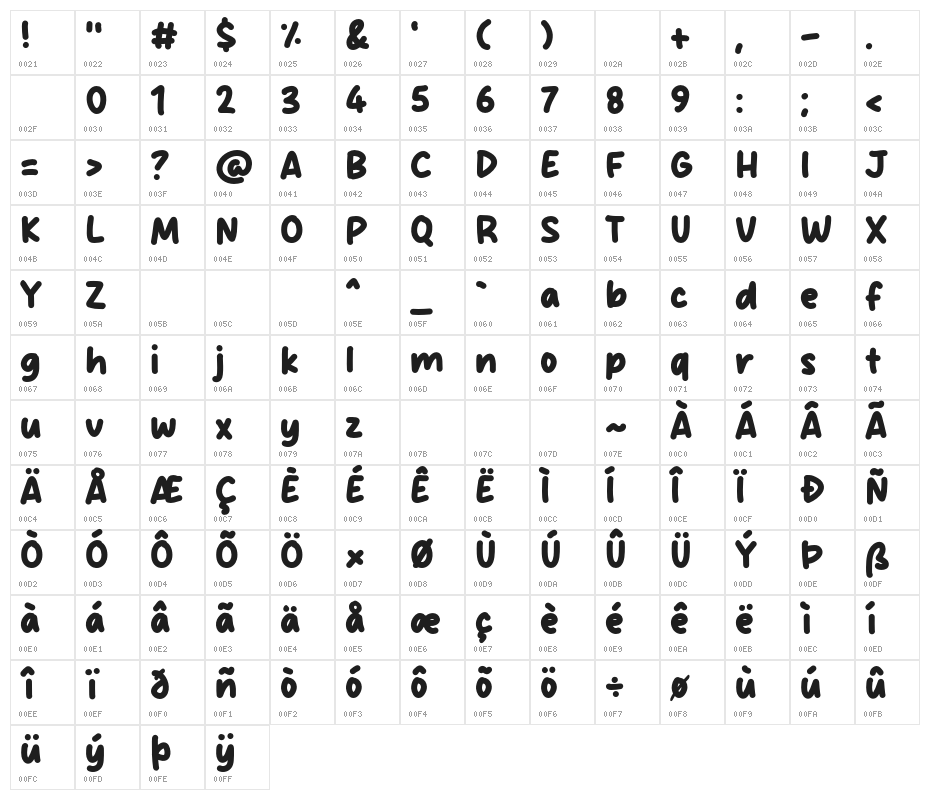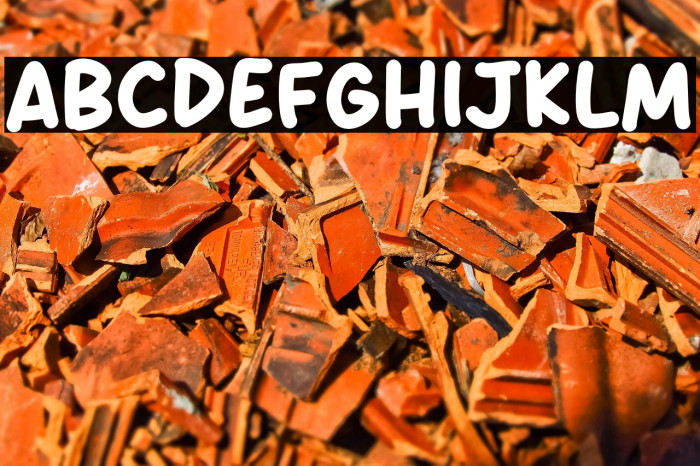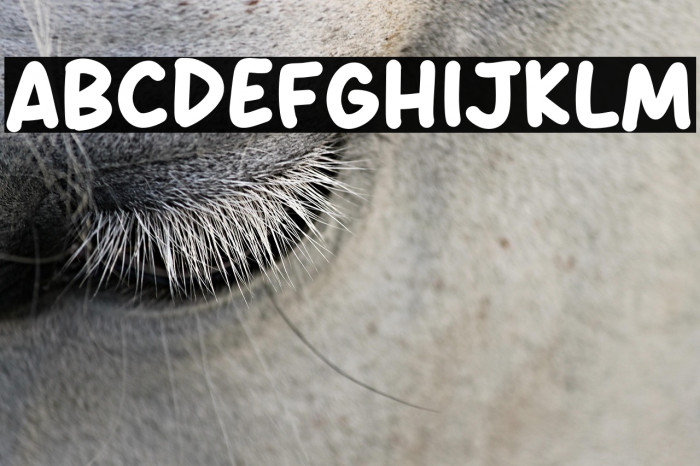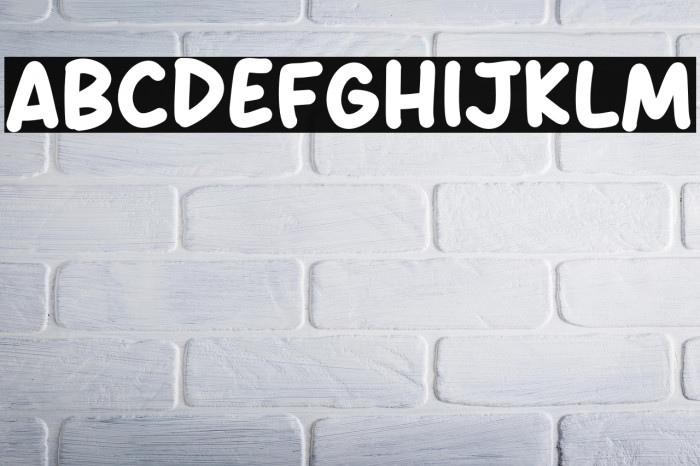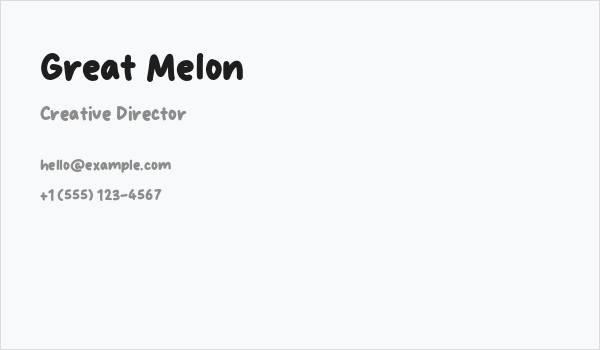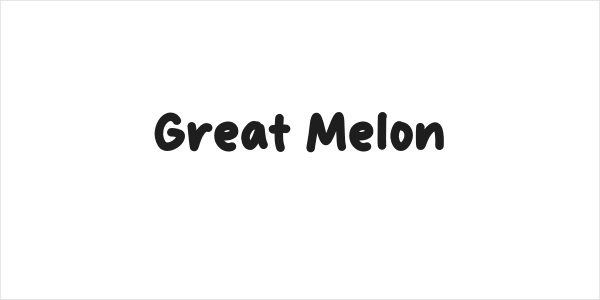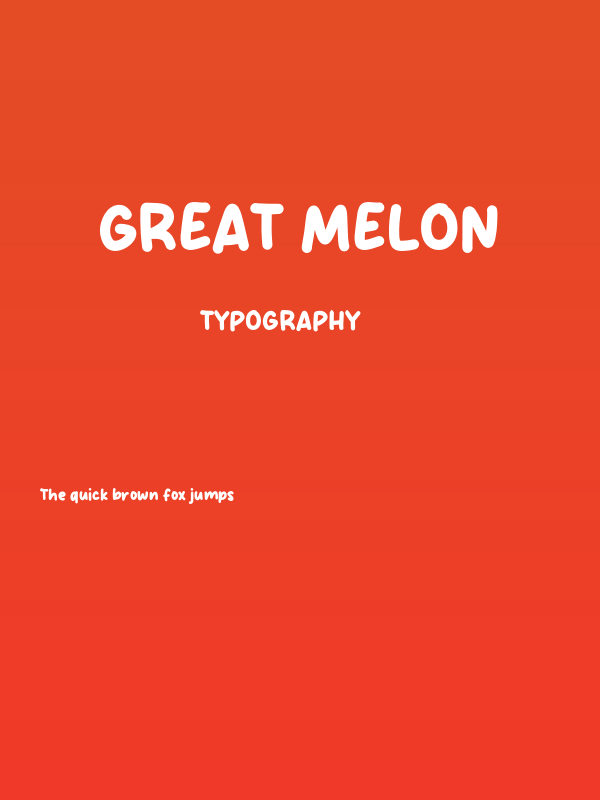
Great Melon Font
Great Melon Description
This playful and bold font features rounded, thick strokes that convey a sense of fun and approachability. The characters are slightly irregular, adding a hand-drawn feel that enhances its casual and friendly appearance. The uppercase and lowercase letters maintain a consistent style, with smooth curves and a uniform thickness that ensures readability. The numerals and special characters are equally bold and rounded, fitting seamlessly with the overall design. This font's unique style makes it ideal for projects that require a touch of whimsy and creativity.
| Use Case | Logos, Posters, Invitations |
| Proposed Projects | Ideal for children's books, playful branding, casual invitations, and creative posters. |